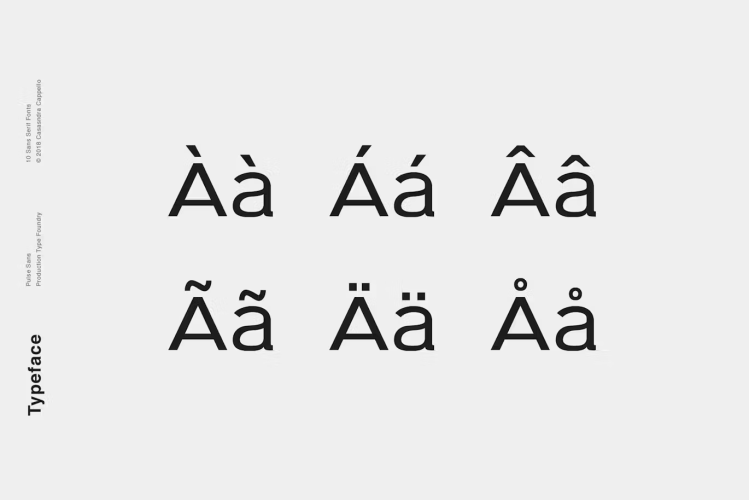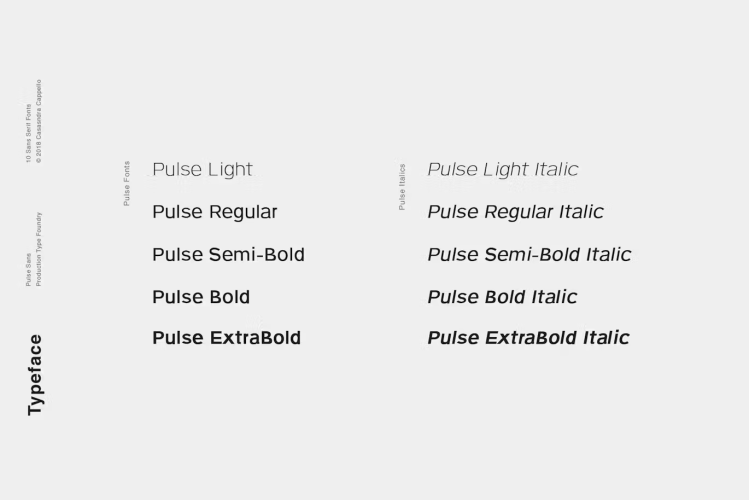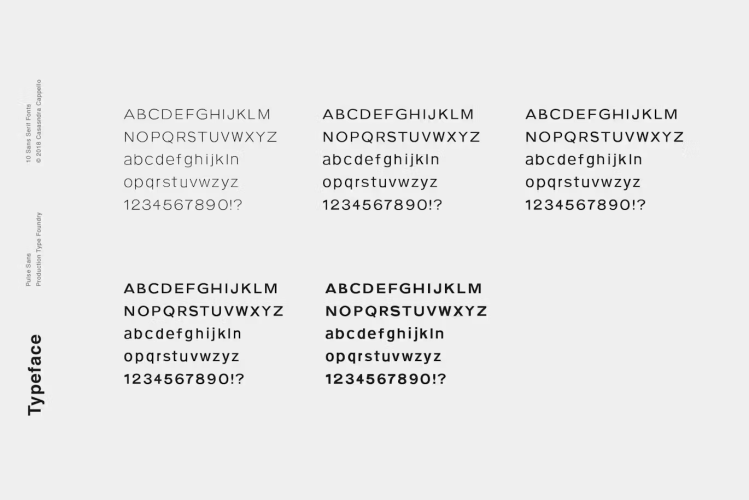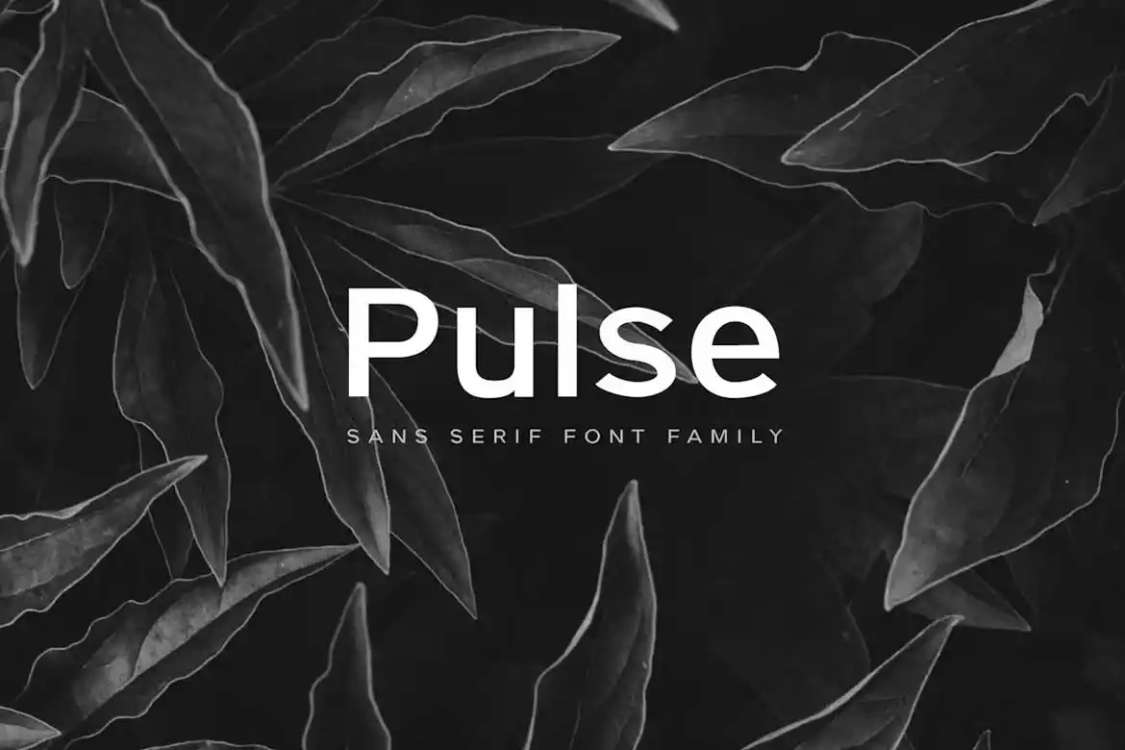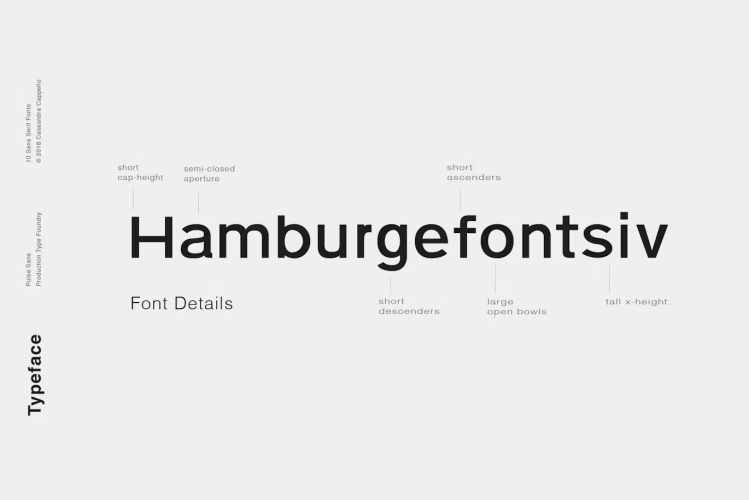
Pulse Font
Pulse is a minimal, classic sans serif typeface with a little personality. It can be used for headers and body copy. This font family includes all Latin characters (including accents), numbers, special characters, and punctuation.
Five weights and five italics.
Where Pulse Font works best
Pulse Font stays legible at small sizes, which makes it a strong choice for navigation, buttons and dashboards in web design and app interfaces.
Clean sans serifs like Pulse Font are the default language of SaaS, fintech and product branding.
What is Pulse Font good for?